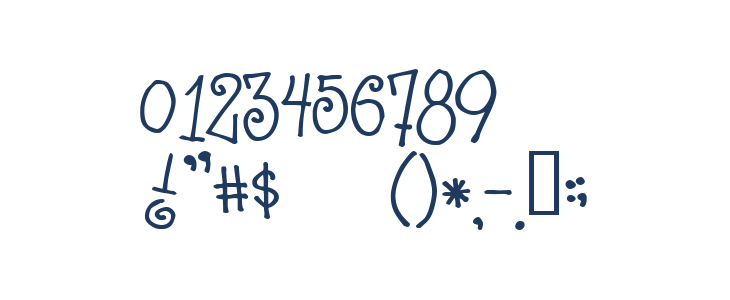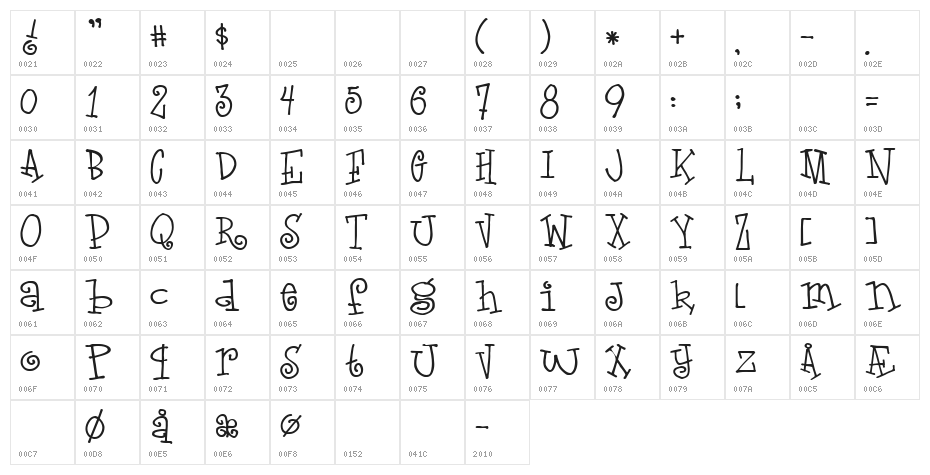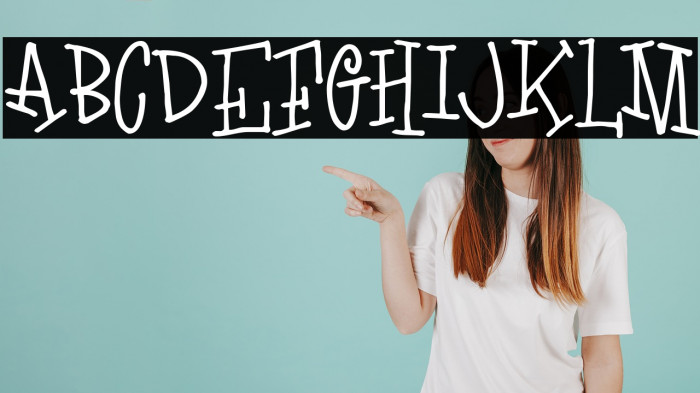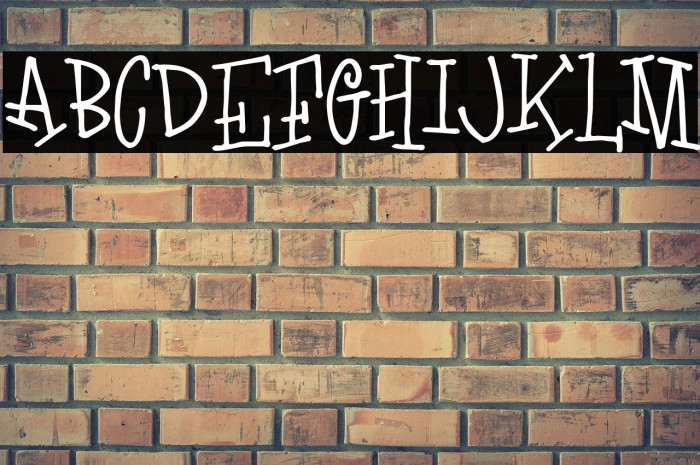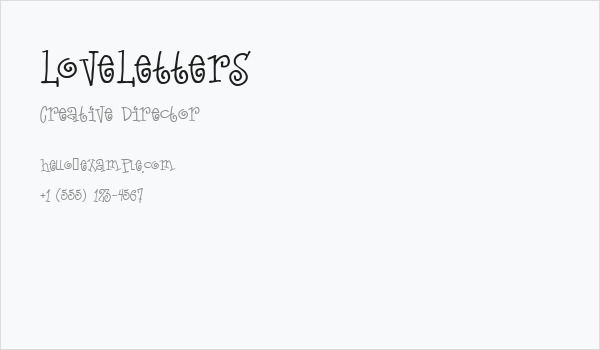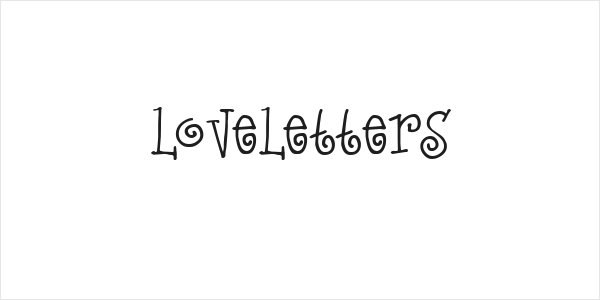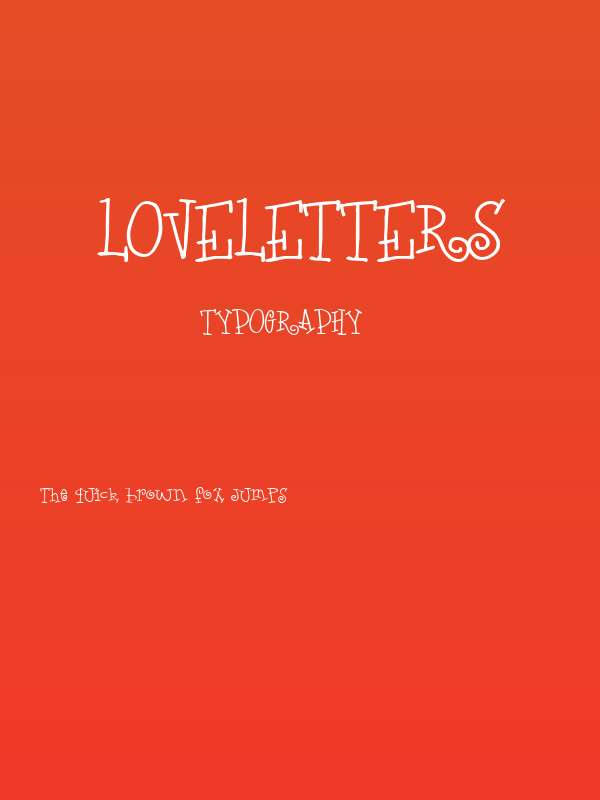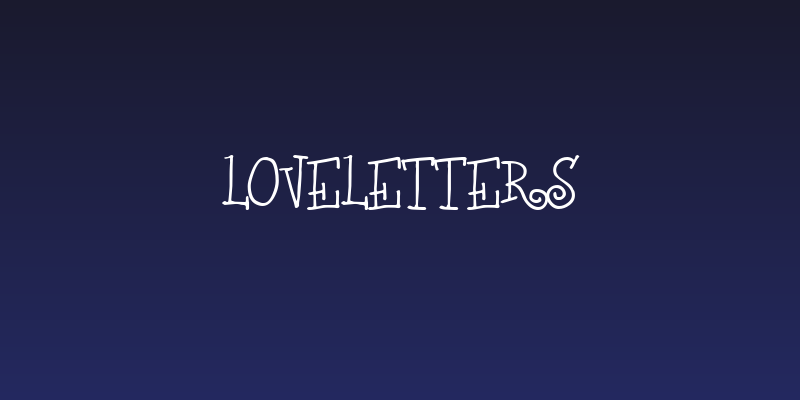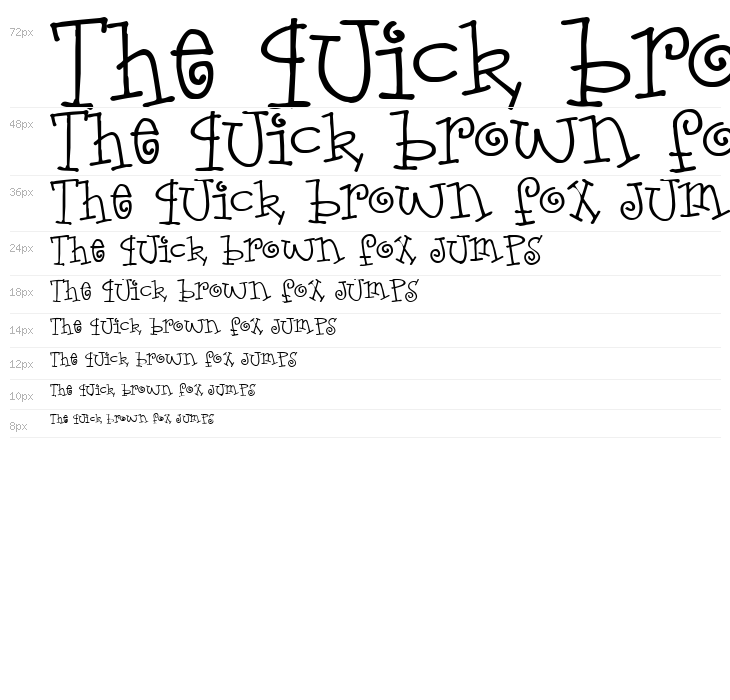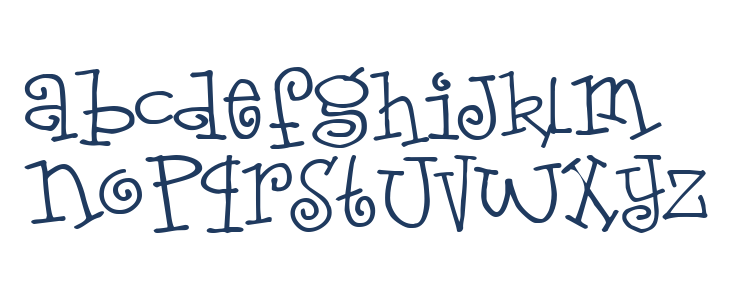
LoveLetters Font
LoveLetters Description
This playful and whimsical font features a hand-drawn style with a quirky, artistic flair. The uppercase letters are bold and slightly irregular, giving them a lively and dynamic appearance. The lowercase letters maintain a consistent style, with some characters incorporating unique loops and swirls that add to the font's charm. Numbers and special characters follow the same playful theme, making them suitable for creative projects. The overall design is reminiscent of handwritten notes or doodles, perfect for adding a personal touch to any design.
| Proposed Projects | Ideal for greeting cards, children's books, playful branding, and DIY projects. |